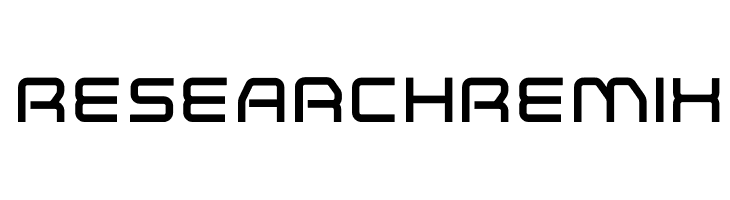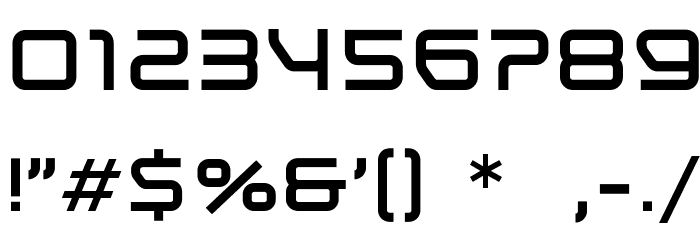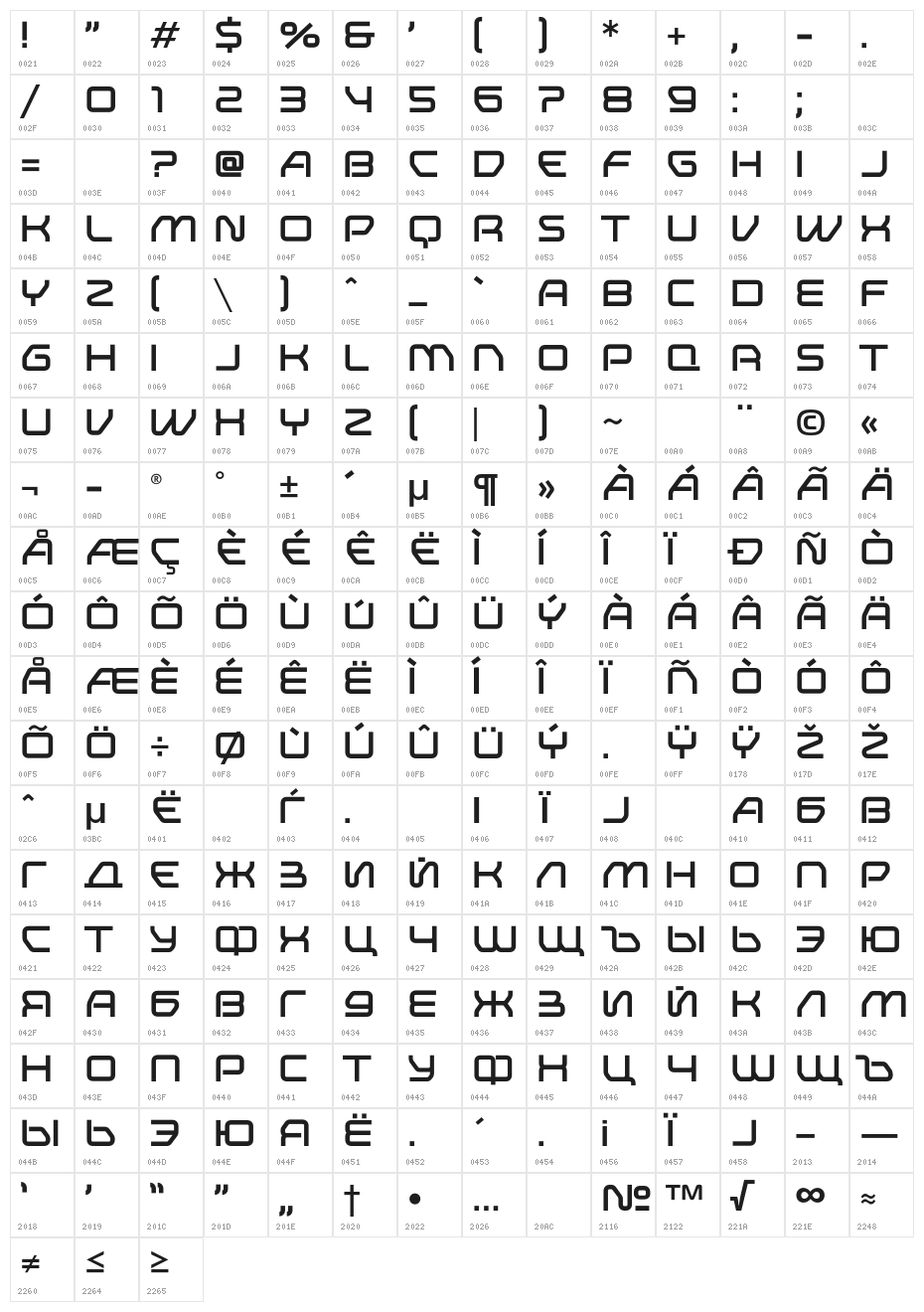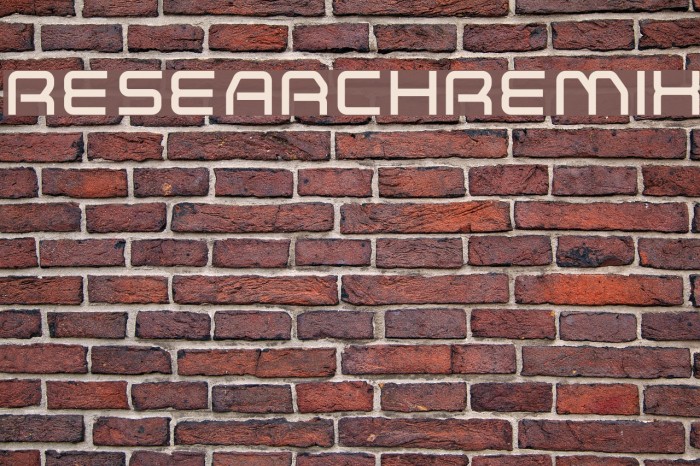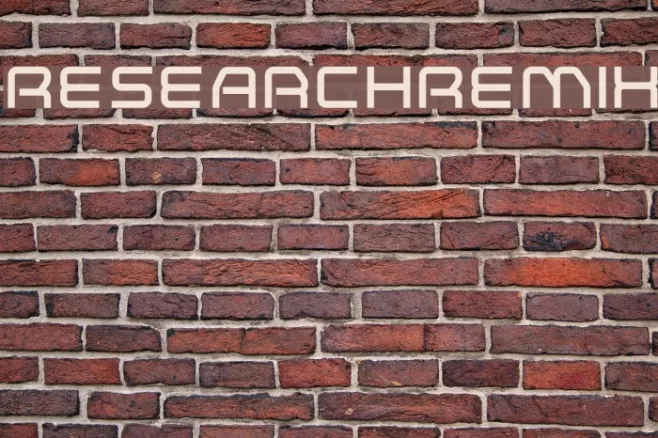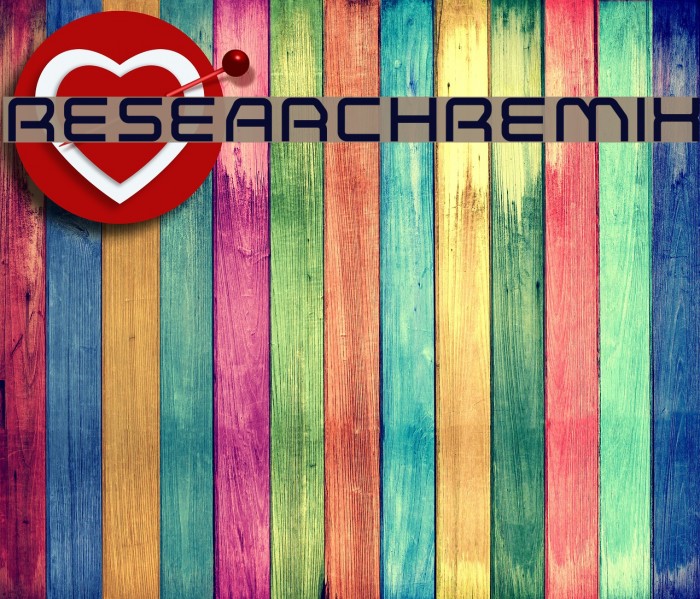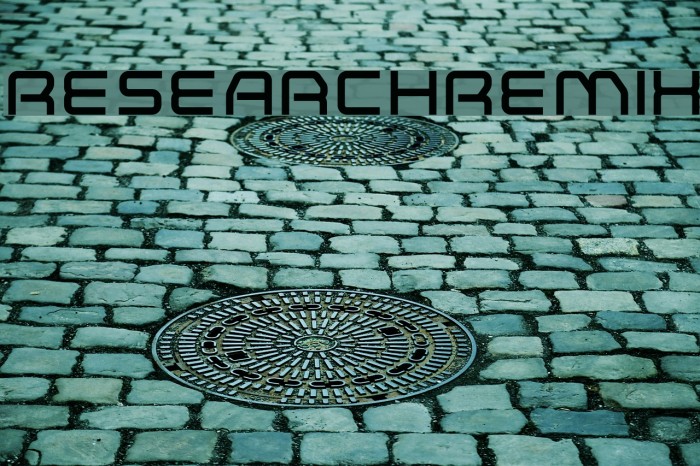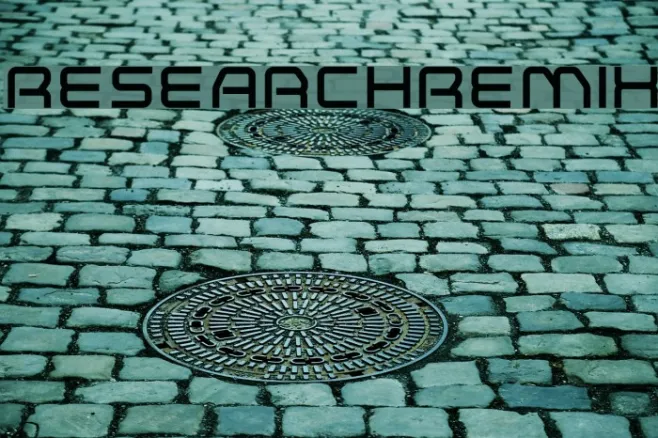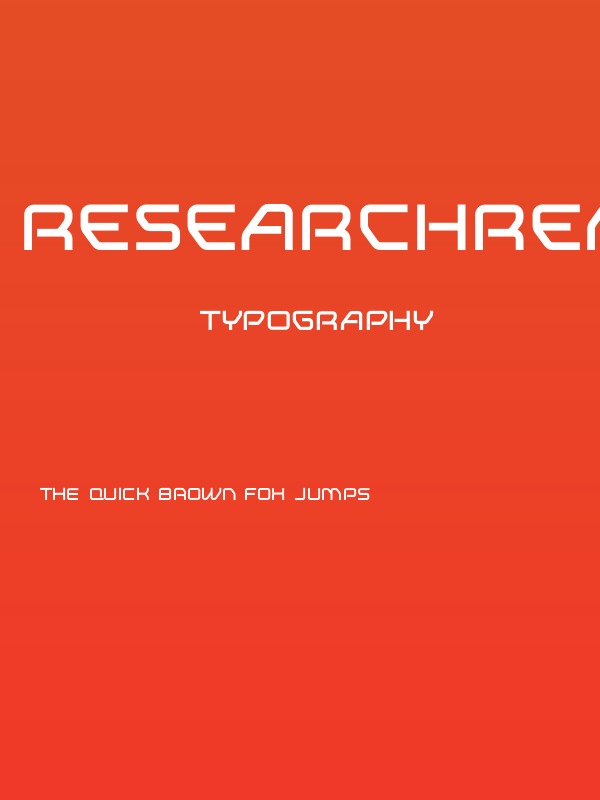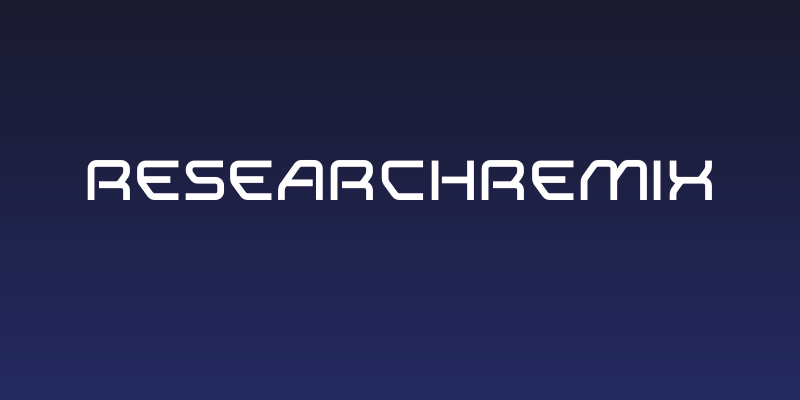
ResearchRemix Font
ResearchRemix Description
This font features a futuristic and geometric design, characterized by its clean lines and angular shapes. The uppercase letters are bold and structured, with a consistent height and width that give a uniform appearance. The lowercase letters maintain the geometric theme, with some characters having unique cuts and angles that add a modern flair. The numerals are equally bold and follow the same design principles, ensuring readability and style. Special characters are crafted to match the overall aesthetic, making them suitable for a variety of design applications. The font's distinct style is ideal for projects that require a modern and technological feel.
| Use Case | Headlines, Logos, Digital Interfaces |
| Proposed Projects | Ideal for technology branding, sci-fi themed designs, modern posters, and digital interfaces. |